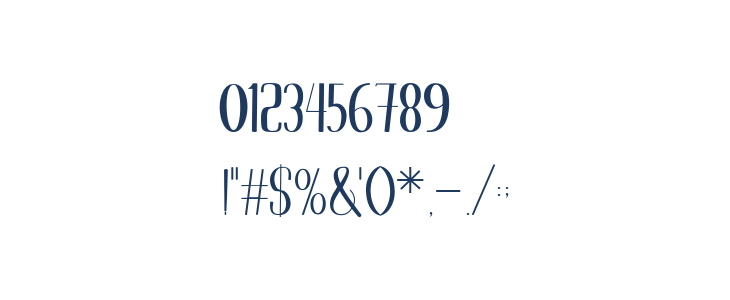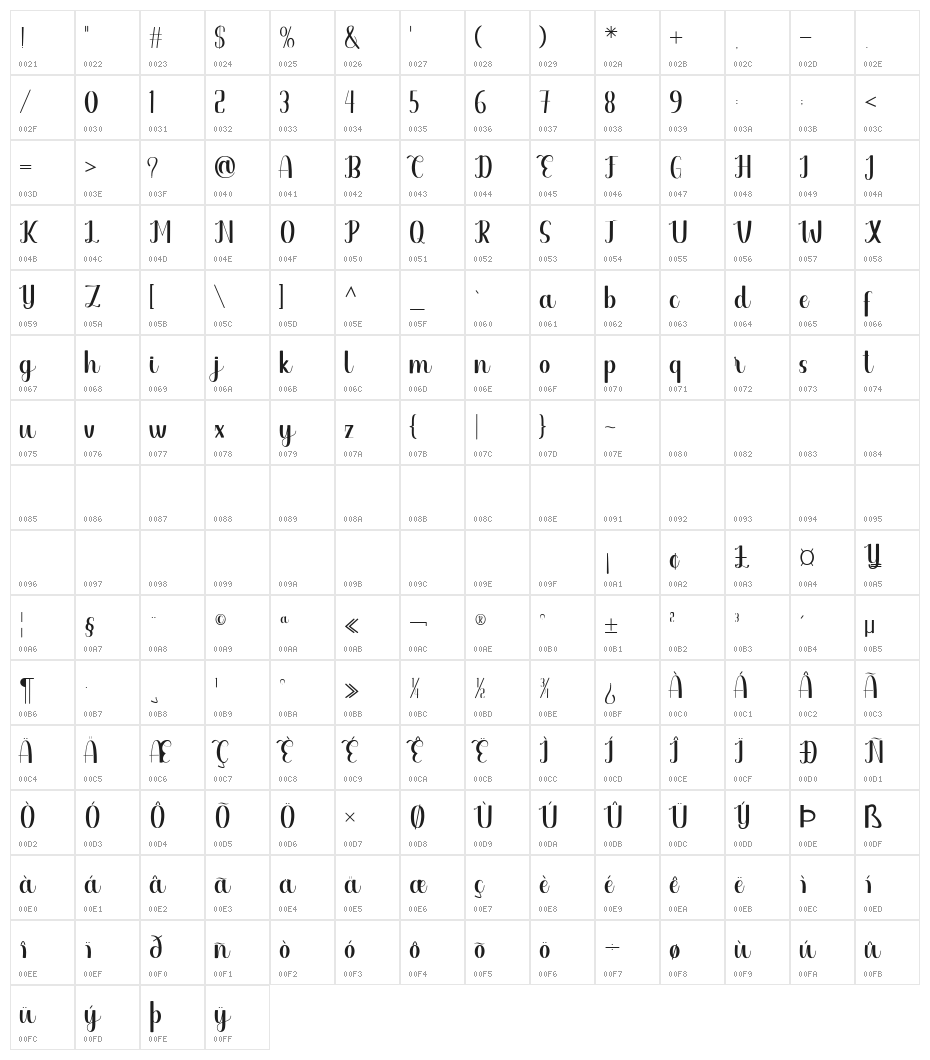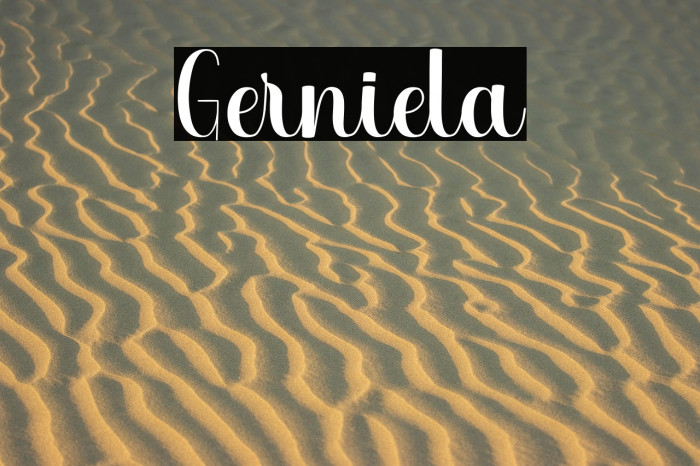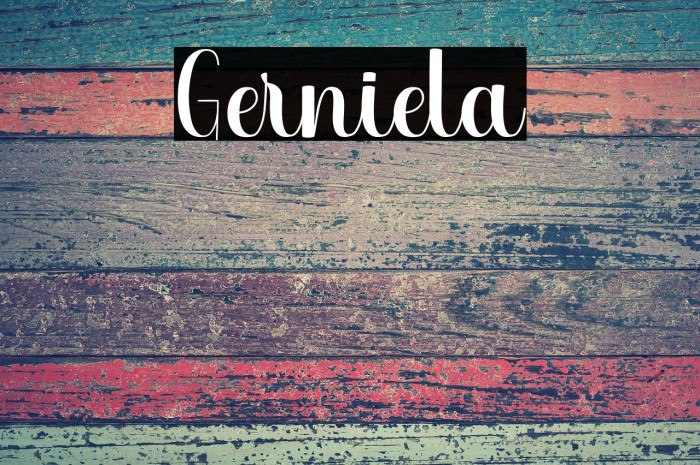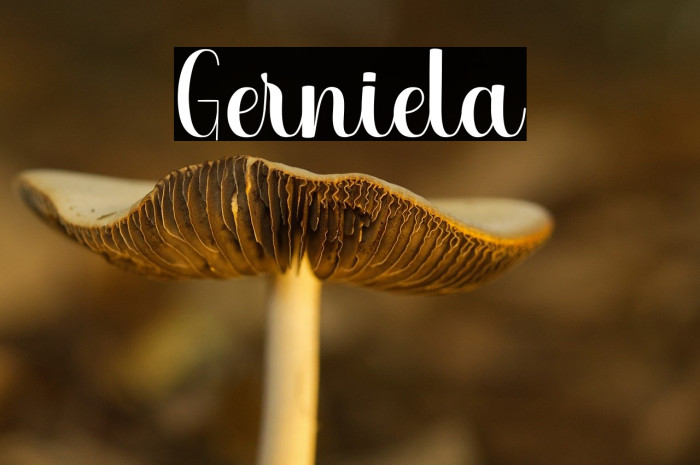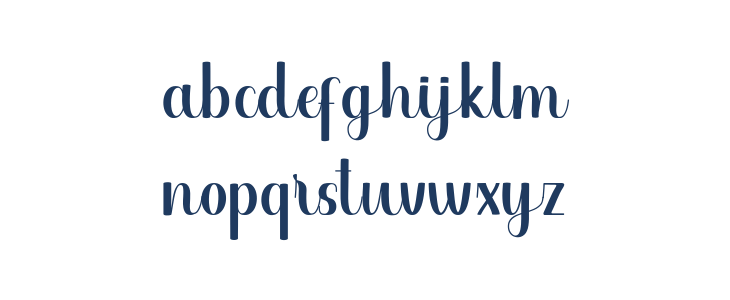
Gerniela Font
Gerniela Description
This font features a unique blend of elegance and playfulness, characterized by its flowing curves and distinctive loops. The uppercase letters are bold and striking, with a whimsical flair that adds personality to each character. The lowercase letters maintain a consistent style, offering a smooth and cohesive look. Numbers are clear and easy to read, while special characters retain the font's signature style, making them stand out. This font is perfect for projects that require a touch of creativity and sophistication, such as invitations, branding, and decorative headlines.
Use CaseHeadlines, Logos, Invitations
Proposed ProjectsIdeal for invitations, branding, decorative headlines, and creative projects.